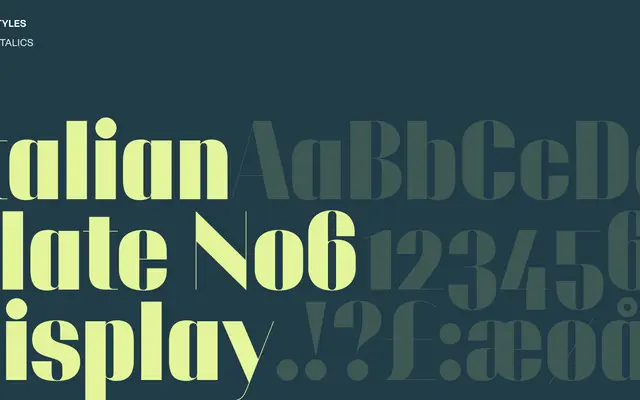
Italian Plate No6 Display
A display-optimised sans from Playtype's Italian Plate series, built for headline and large-scale typographic use.
Part of Playtype's numbered Italian Plate series, this display cut is tuned for prominent, large-scale settings where optical refinement at headline sizes matters. The page offers little detail on weight or style range, suggesting a focused rather than expansive family. Its positioning within a named series implies a broader typographic system with related text or body cuts elsewhere.
The name and page positioning suggest a display-optimised sans, part of a numbered Italian Plate series, intended for large-scale headline use rather than text setting.